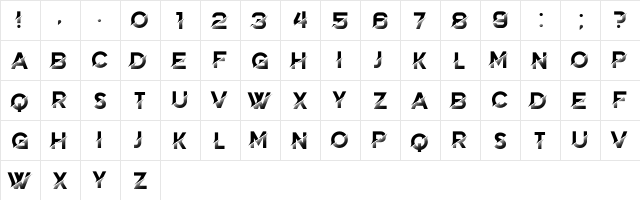
Brightness Inverted Regular
Design Context for Brightness Inverted Typeface
Brightness Inverted is a composed and adaptable typeface that performs quietly and consistently across a wide range of design contexts.